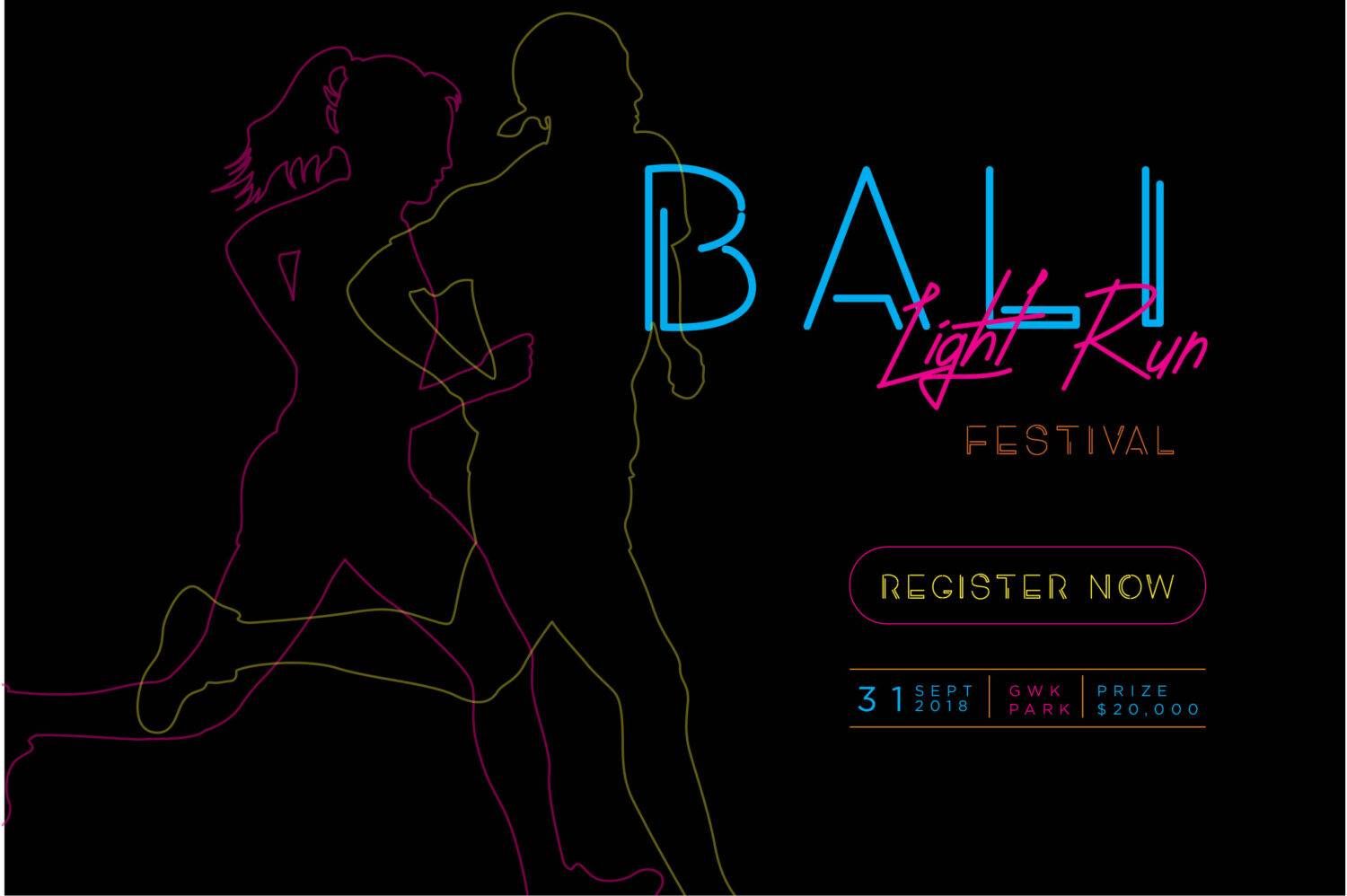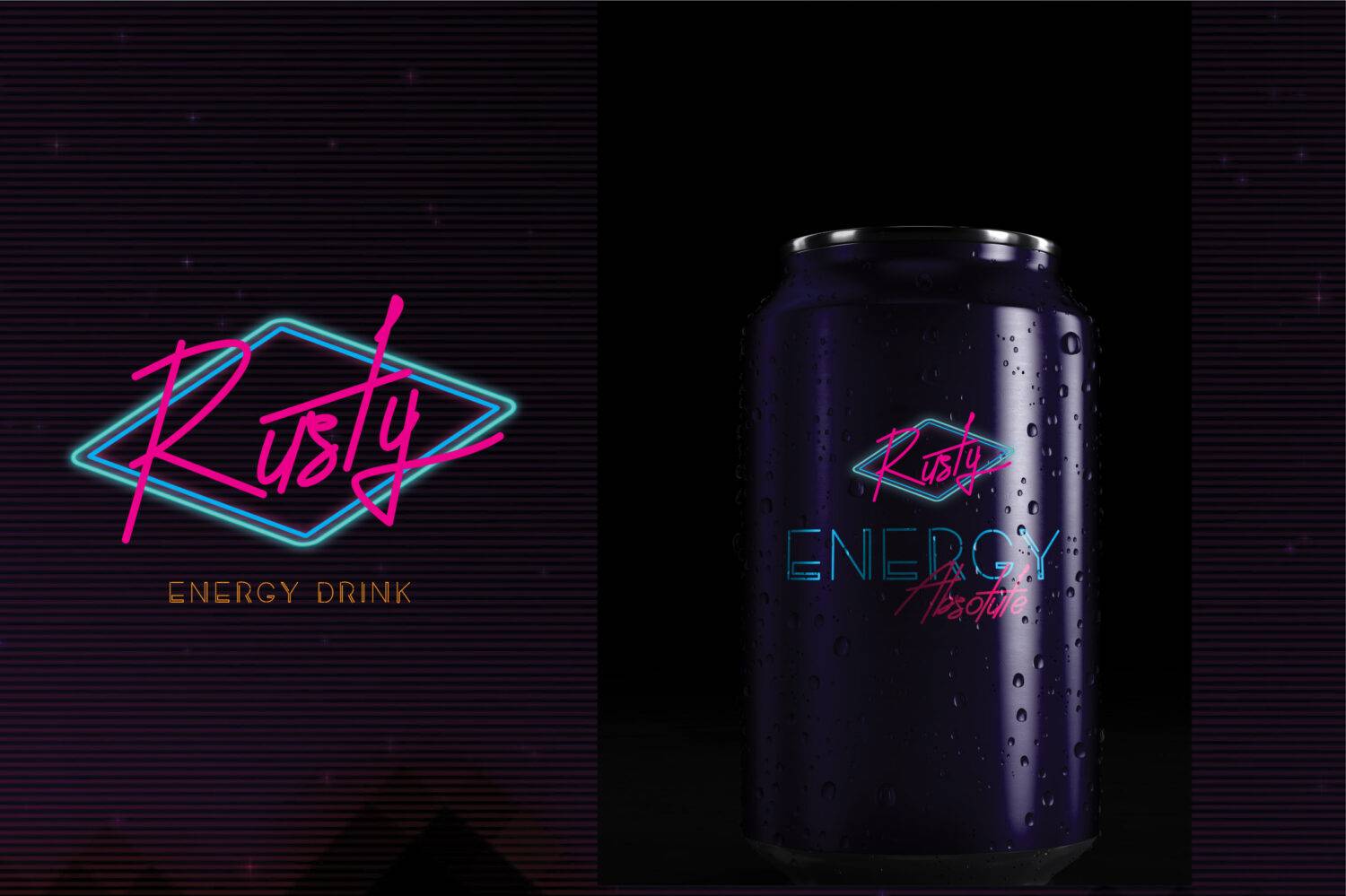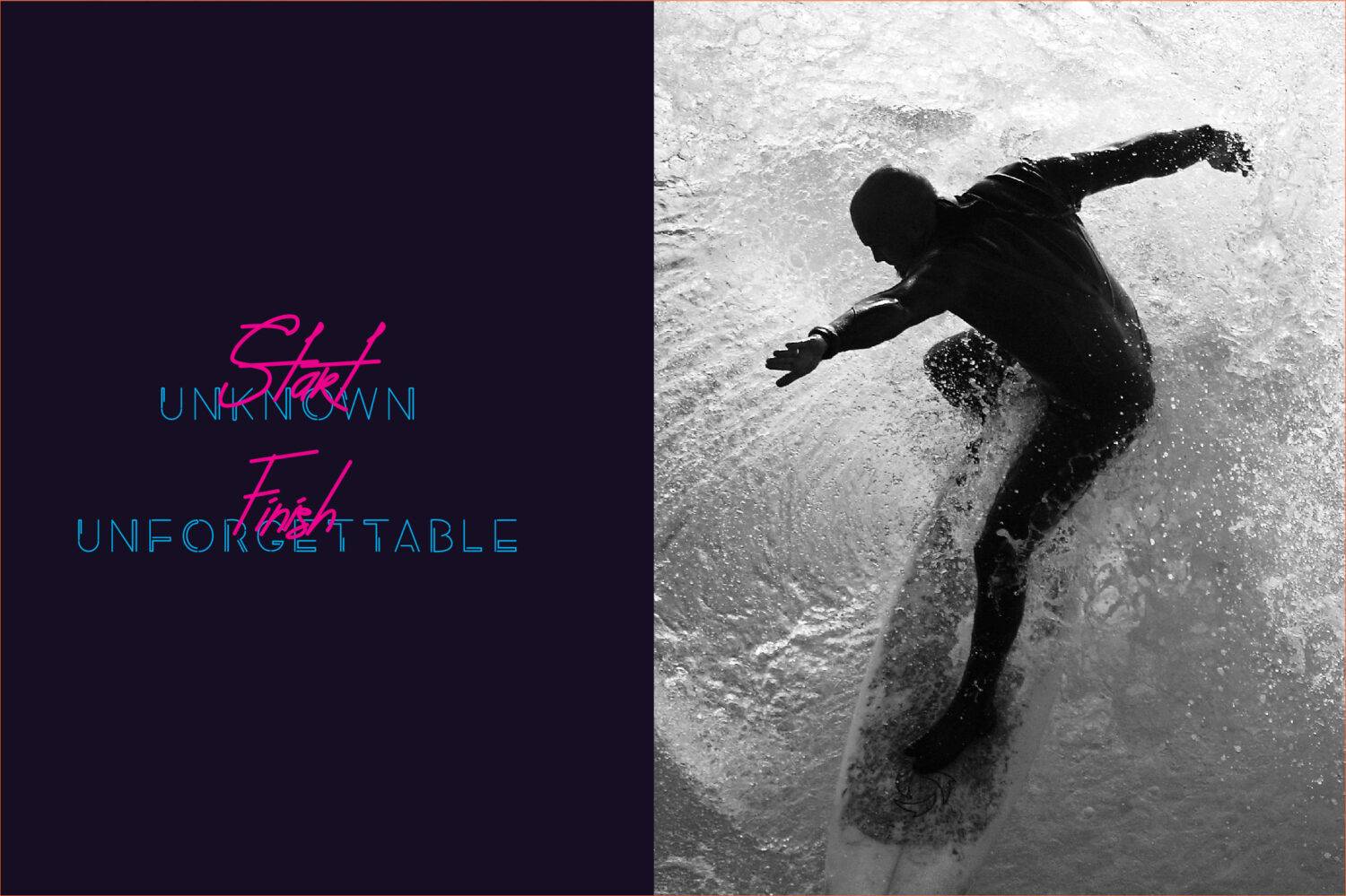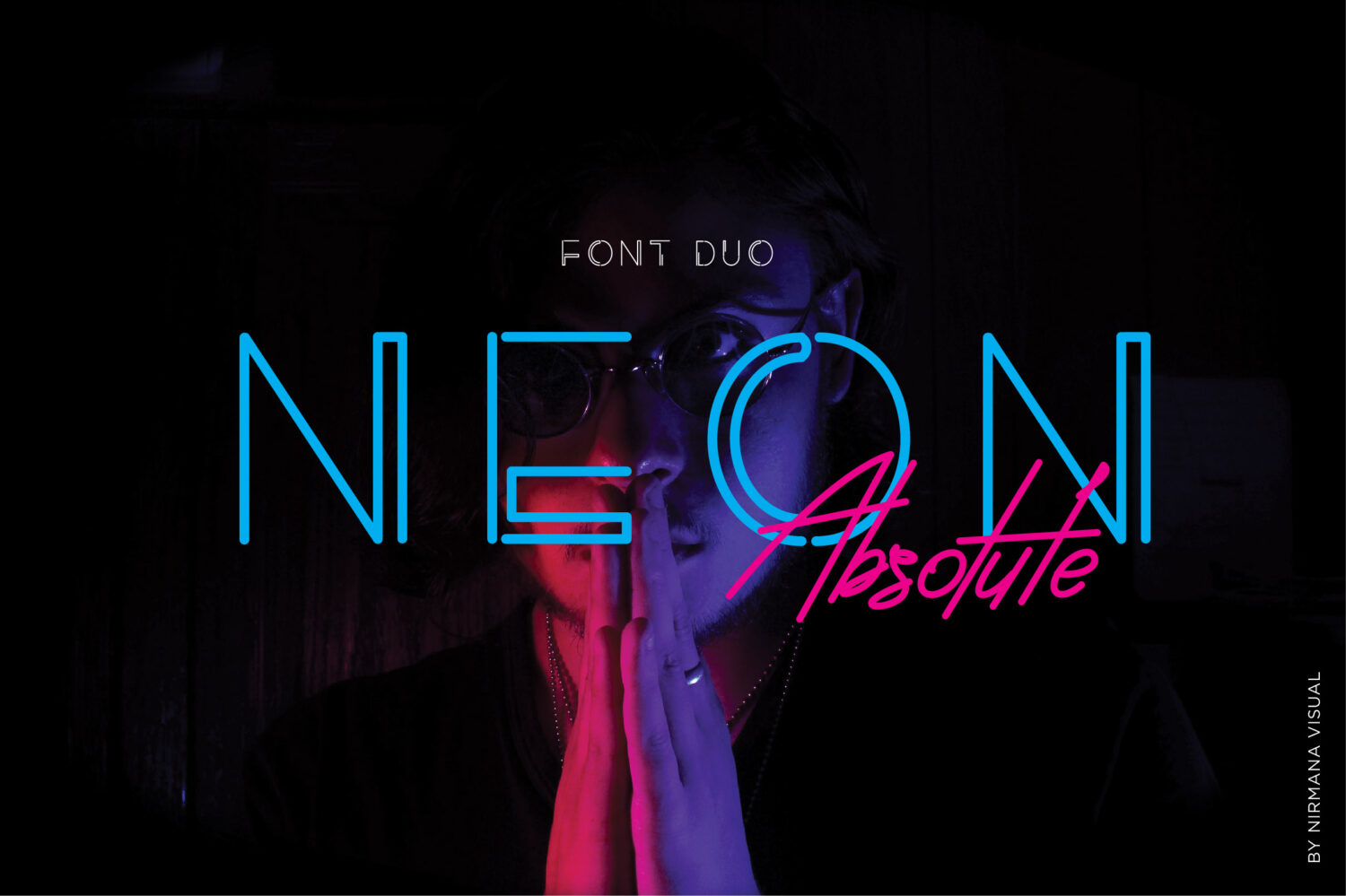
Neon Absolute Sans is a sleek, modern sans serif font characterized by its ultra-light weight, narrow width, and high x-height, giving it a clean and airy feel. Its geometric, open letterforms with unique segmented strokes evoke a futuristic, tech-inspired vibe, making it ideal for creative branding, digital interfaces, and contemporary editorial designs where a stylish yet minimalist look is desired. This font works especially well in headlines and logos, where its distinct, neon-like aesthetic can truly stand out.
Neon Absolute Font
About Neon Absolute Font